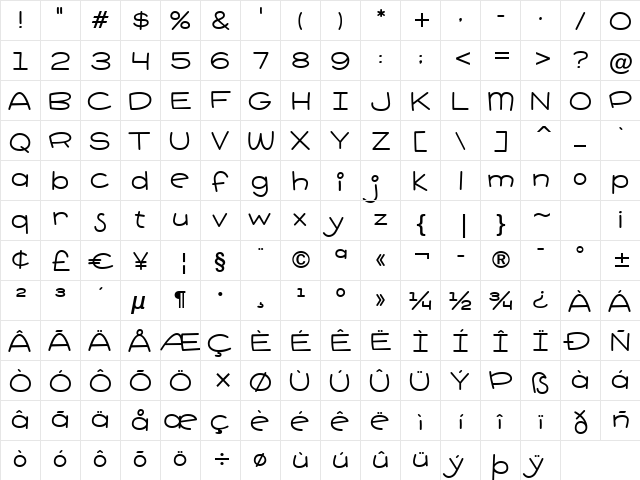
Pie Contest BTN Round Regular
Design Context for Pie Contest BTN Round Typeface
Pie Contest BTN Round uses gentle rounded endings to create a warm, inviting typographic personality — less corporate than geometric sans, more refined than playful display fonts.
A natural fit for tech startups, health and wellness brands, children's products, and friendly consumer apps.
Font Pairing: Pairs well with a rounded or humanist sans for body copy, maintaining the friendly tone without relying on Pie Contest BTN Round to carry extended reading.
Pro Tip: Pair Pie Contest BTN Round with a geometric sans for a balanced system — the rounded softness works as a warm counterpoint to harder-edged companions.